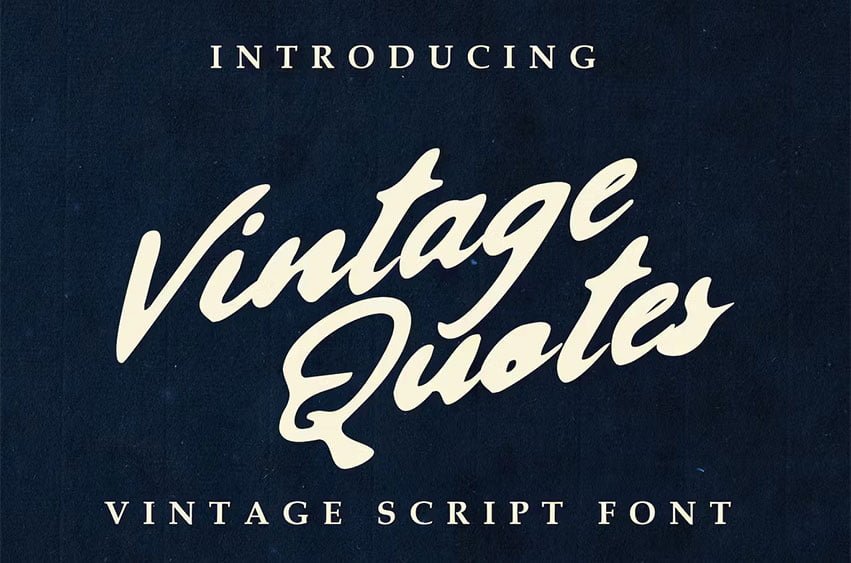
Vintage Quotes Font is a Vintage handwritten font . Made with naturally handwritten. The font will make your design more beautiful and powerful. This font is suitable for any design like branding, quotes and etc.